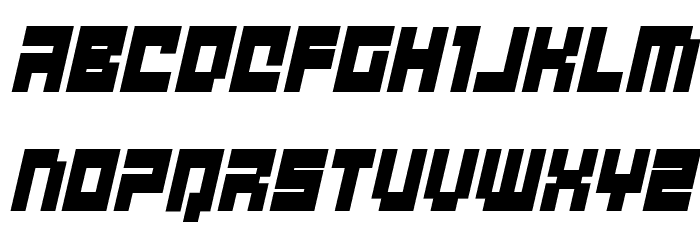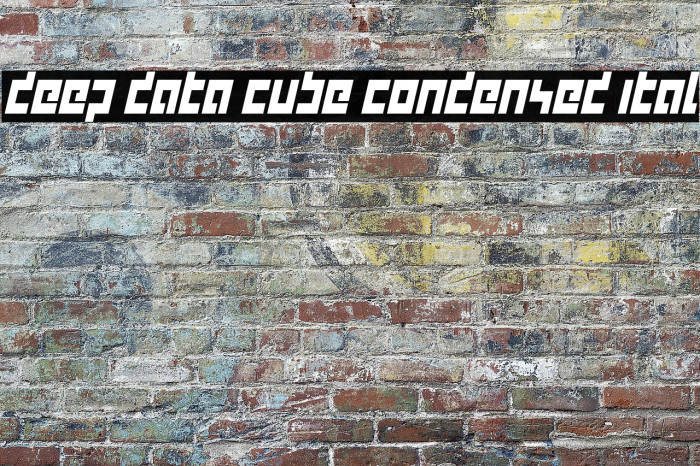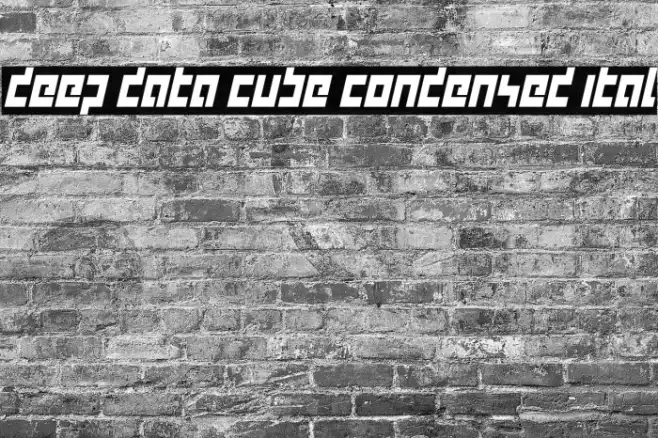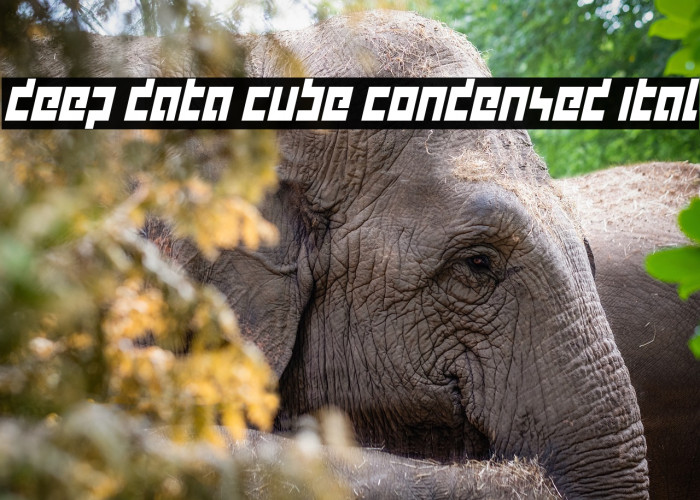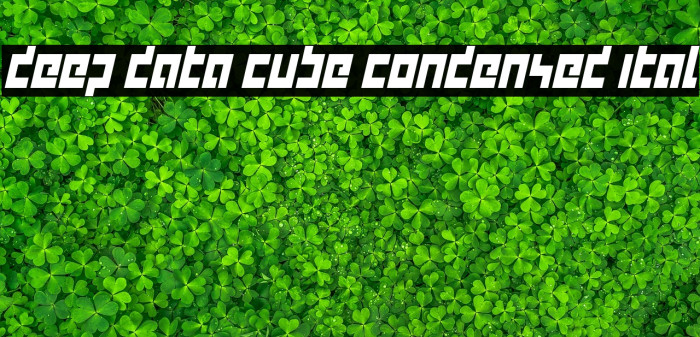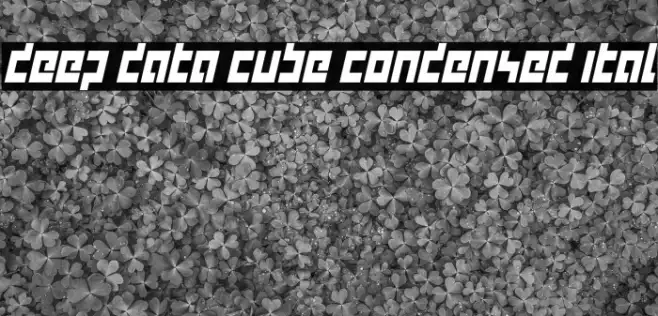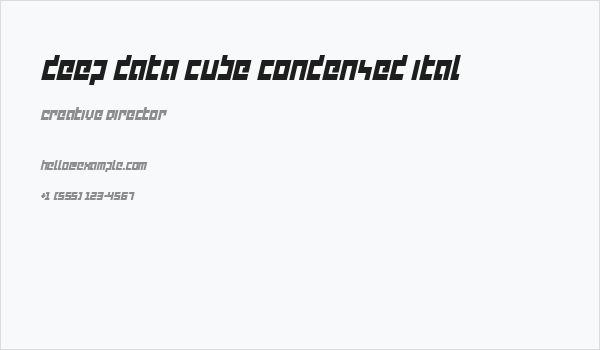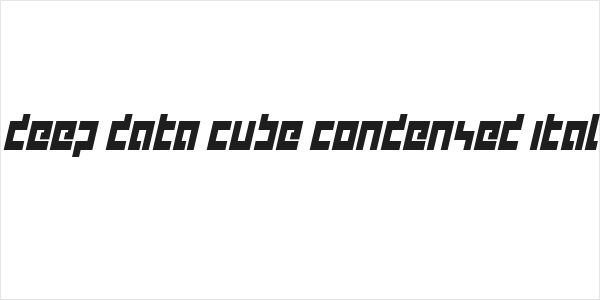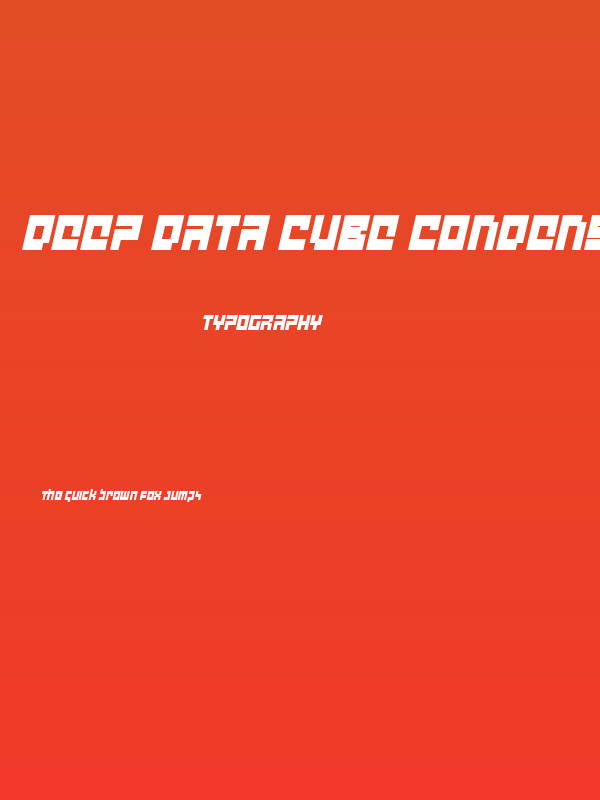
deep data cube condensed ital Font
deep data cube condensed ital Description
This font features a bold, angular design with a futuristic and geometric aesthetic. The characters are sharply defined with a consistent slant, giving a sense of motion and modernity. The uppercase and lowercase letters maintain a uniform style, with distinct edges and a block-like appearance. Numbers and special characters follow the same design principles, ensuring a cohesive look across all glyphs. The condensed width of the font allows for efficient use of space, making it suitable for dynamic and impactful text displays.
| Proposed Projects | Ideal for technology branding, sci-fi movie posters, video game titles, and modern advertising campaigns. |